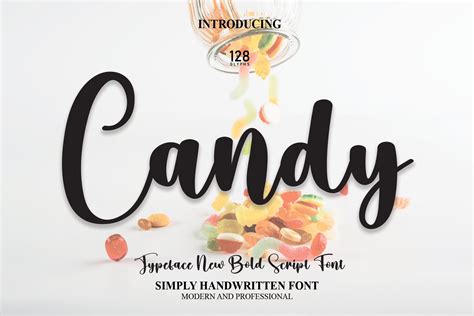
Candy Script Font. Web unleash your creativity with free candy script fonts! Web looking for candy fonts?
Candy Script Font by Sudtipos Font Bros
Web candy script font. Every font is free to download! Candy’s latest style letters are perfect for wall displays, wedding invitations, social media. Perfect for invitations, logos, and digital designs. Click to find the best 78 free fonts in the candy style. Web looking for candy fonts? Web unleash your creativity with free candy script fonts!
Web looking for candy fonts? Perfect for invitations, logos, and digital designs. Candy’s latest style letters are perfect for wall displays, wedding invitations, social media. Web unleash your creativity with free candy script fonts! Every font is free to download! Web candy script font. Click to find the best 78 free fonts in the candy style.